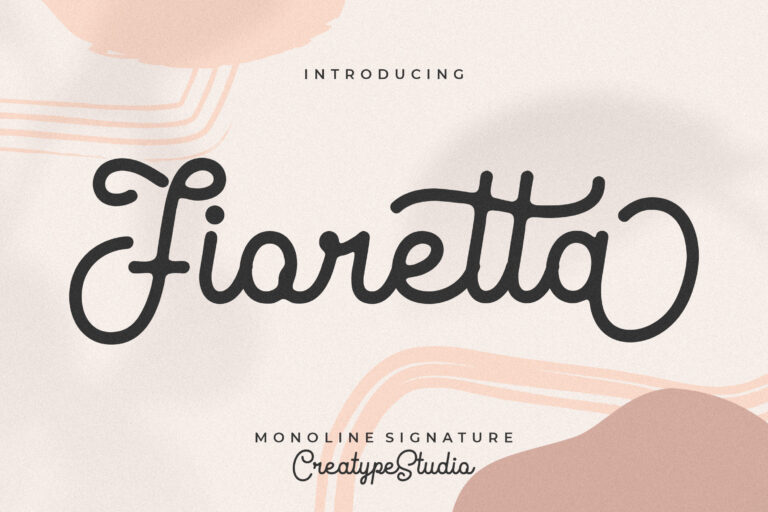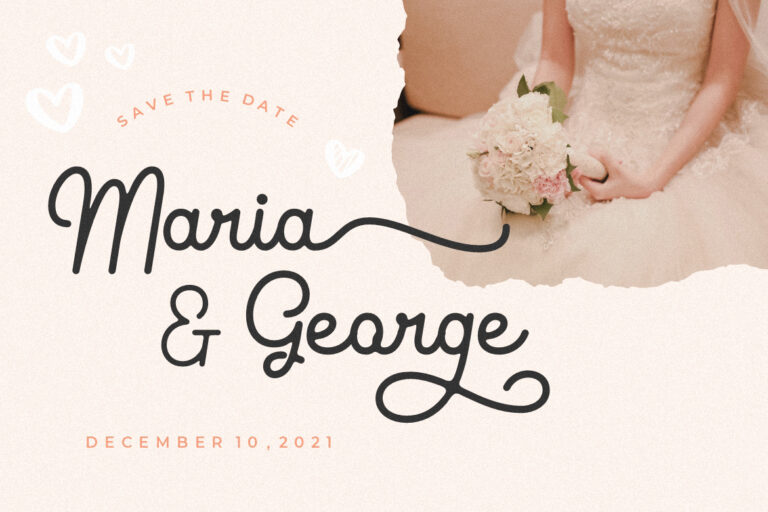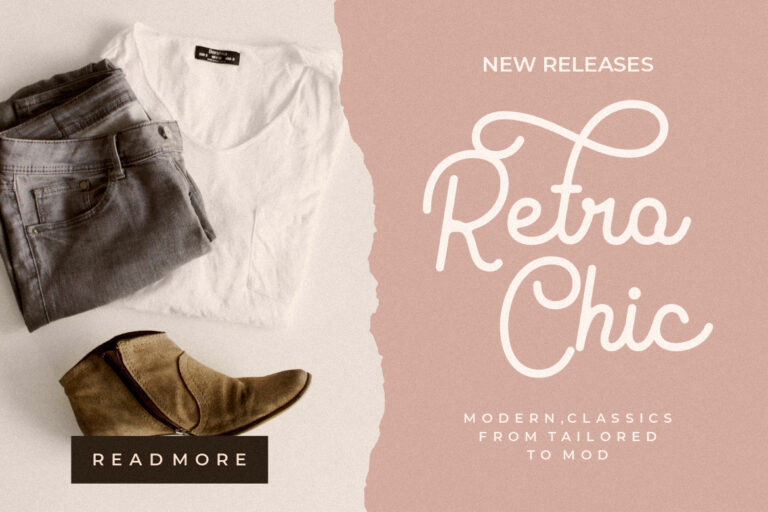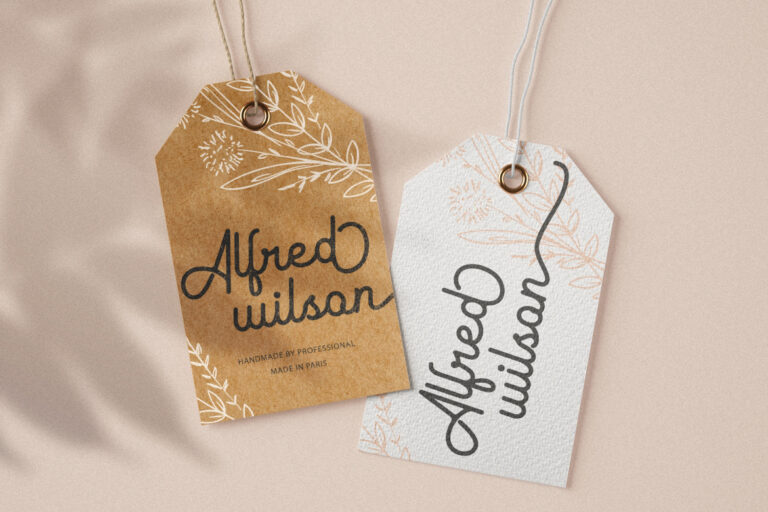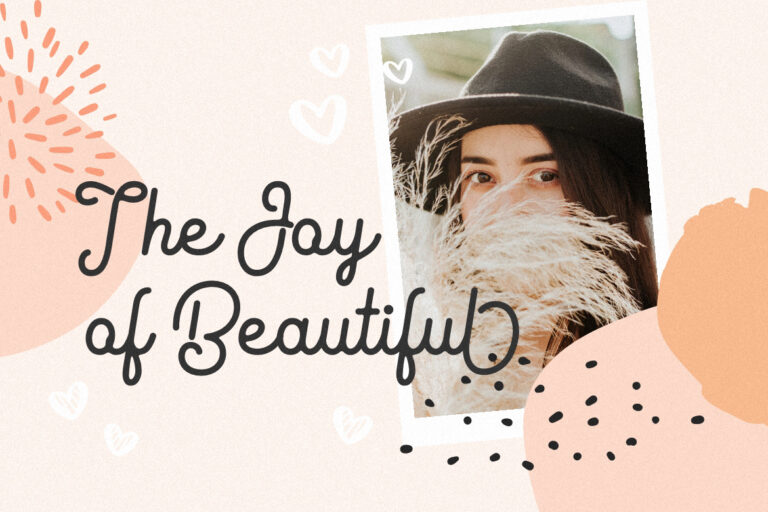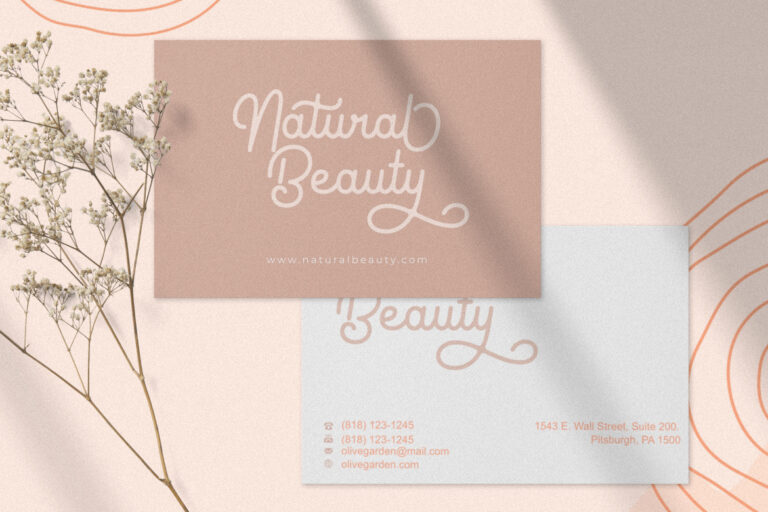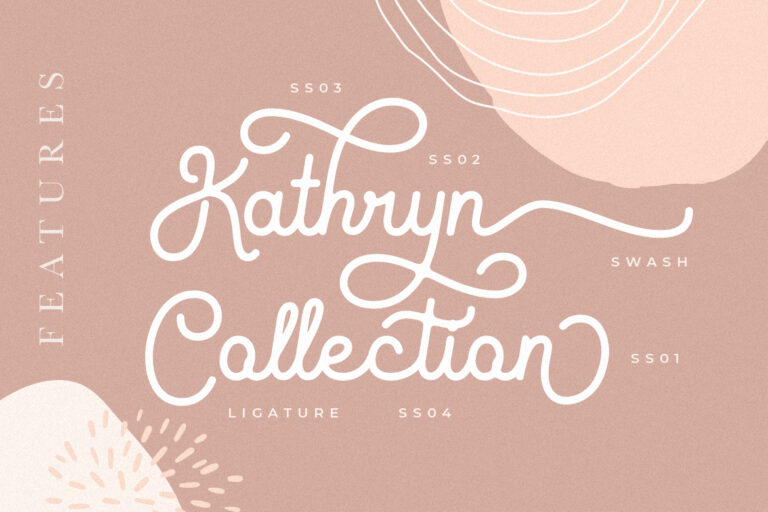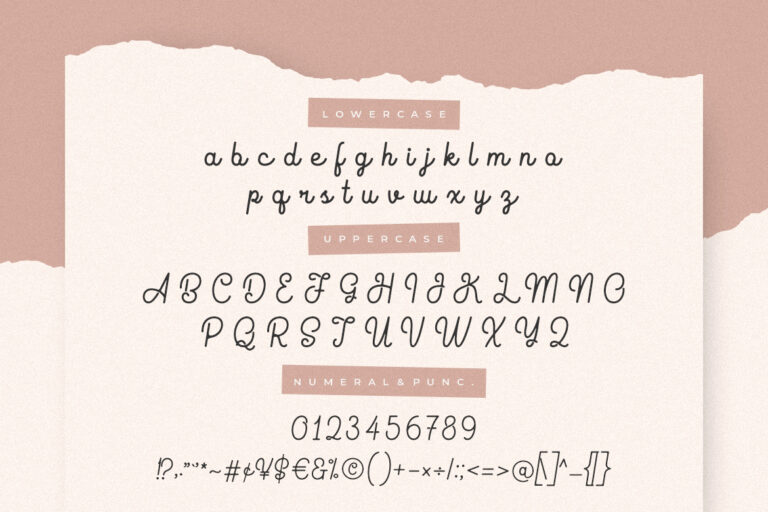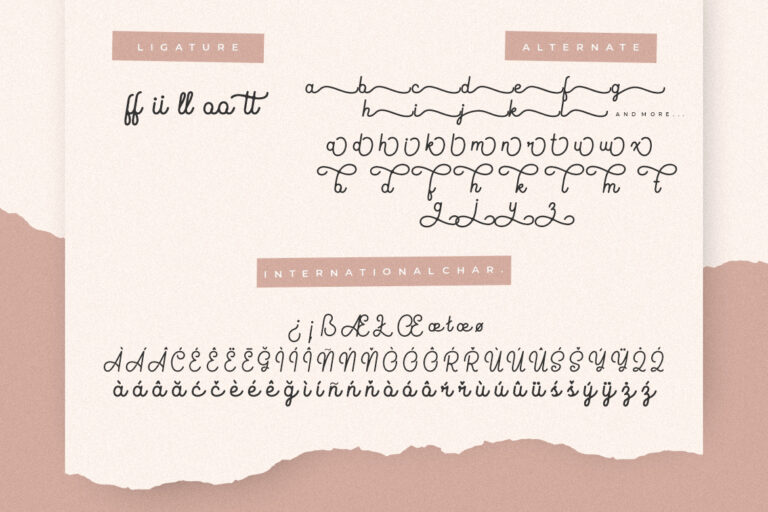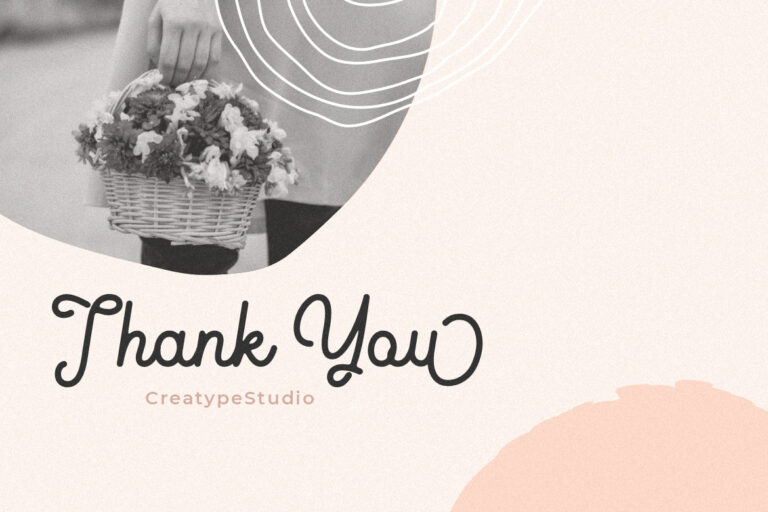
Fioretta Monoline Signature
Fioretta a monoline signature font with smooth curve looks natural and elegant for your business needs.
Fioretta would perfect for photography, watermark, social media posts, advertisements, logos & branding, invitation, product designs, label, stationery, wedding designs, product packaging, special events or anything that need handwriting taste.
- Ligature, Alternate & Swashes